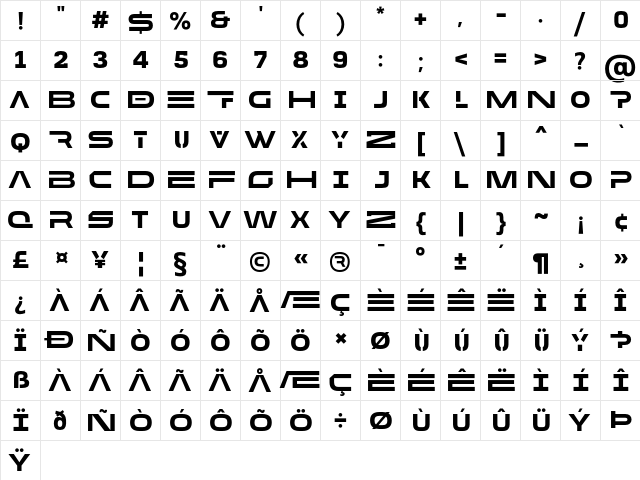
MADE Future X HEADER Bold
Design Context for MADE Future X HEADER Typeface
MADE Future X HEADER channels digital-age aesthetics through its sharp, structured letterforms — ideal for brands that want to signal innovation. Its bold stroke weight gives it real presence on the page.
Pro Tip: Use MADE Future X HEADER in combination with a neutral sans for body text. Let it define the brand voice in headlines while keeping reading comfortable elsewhere.